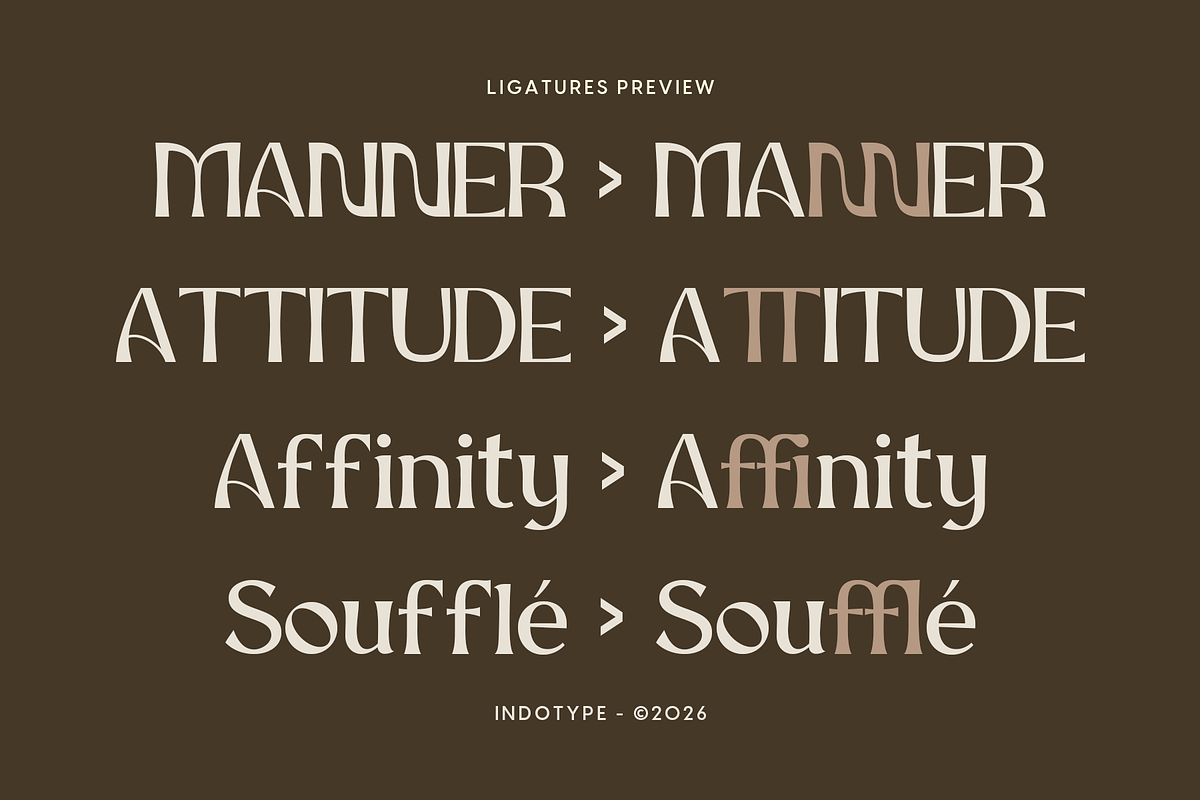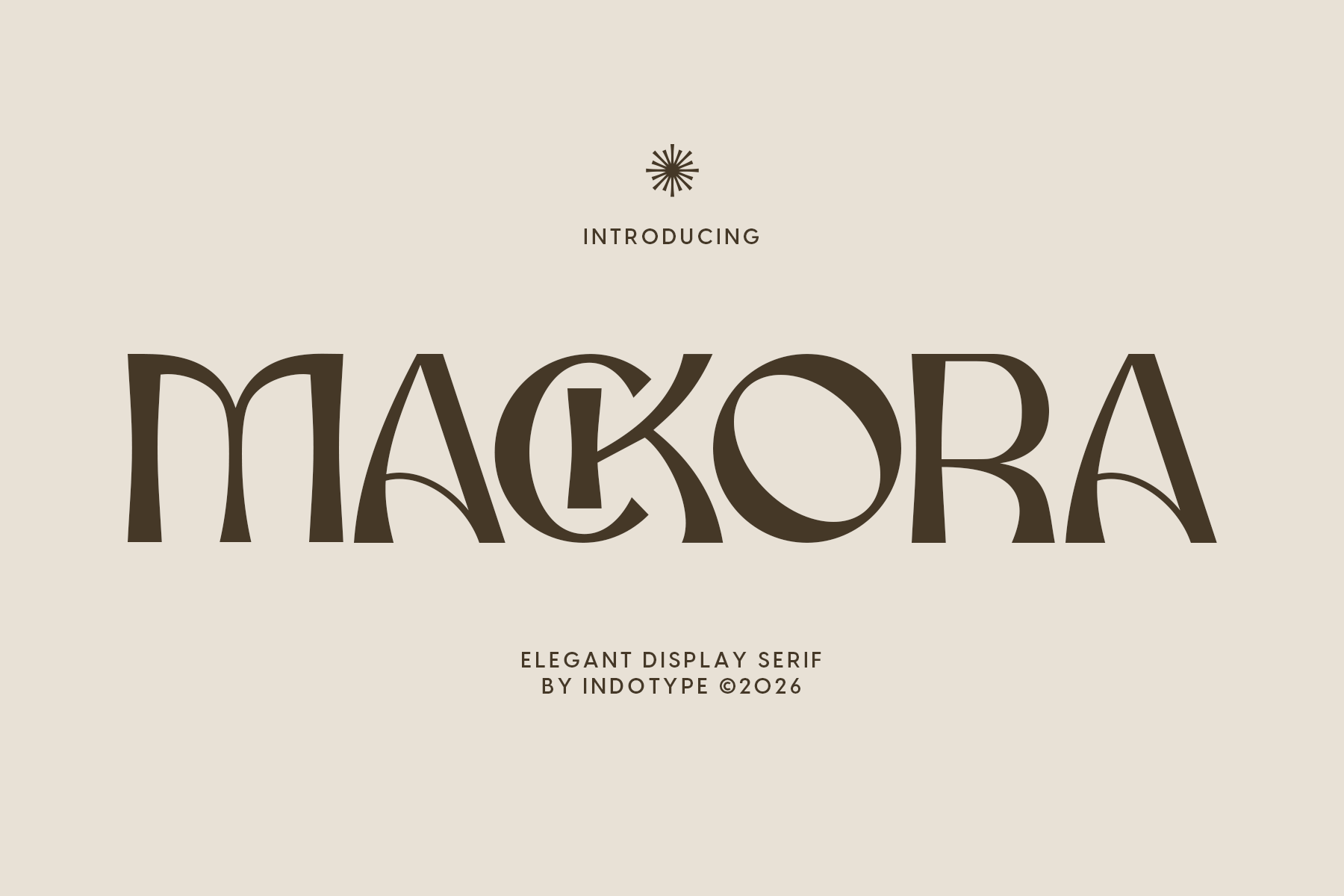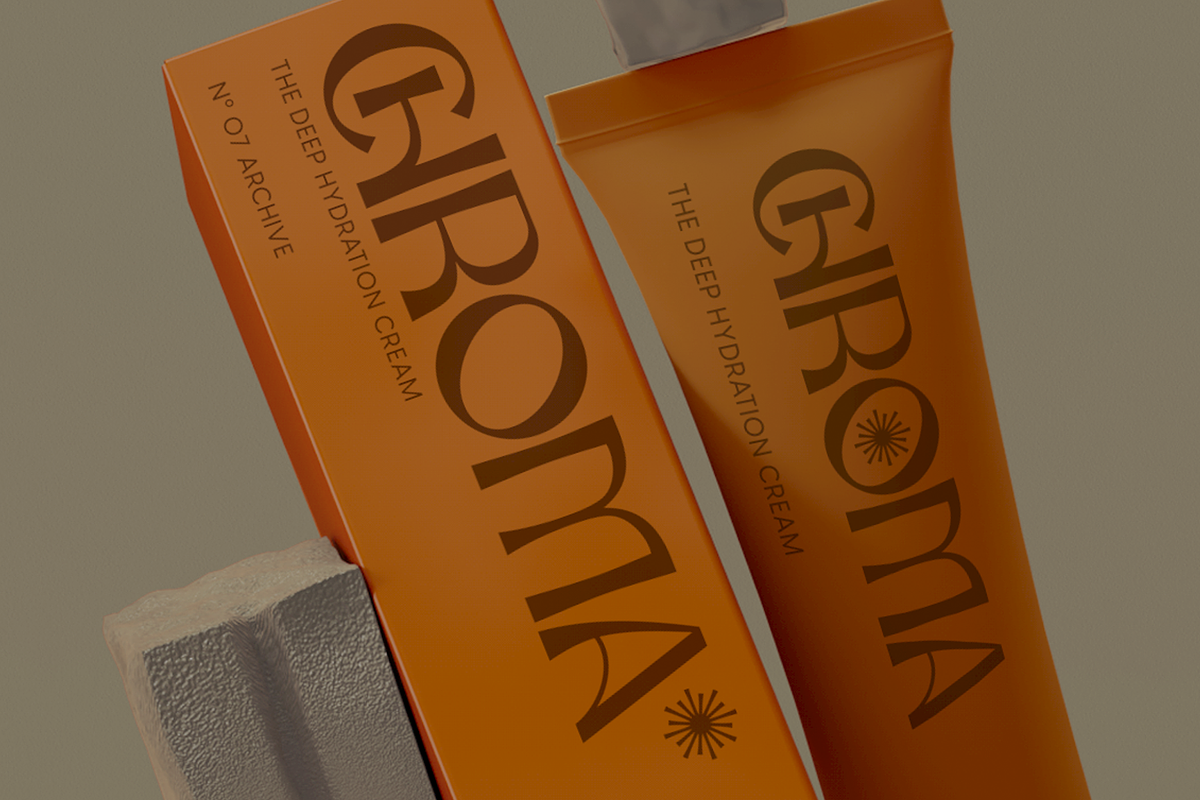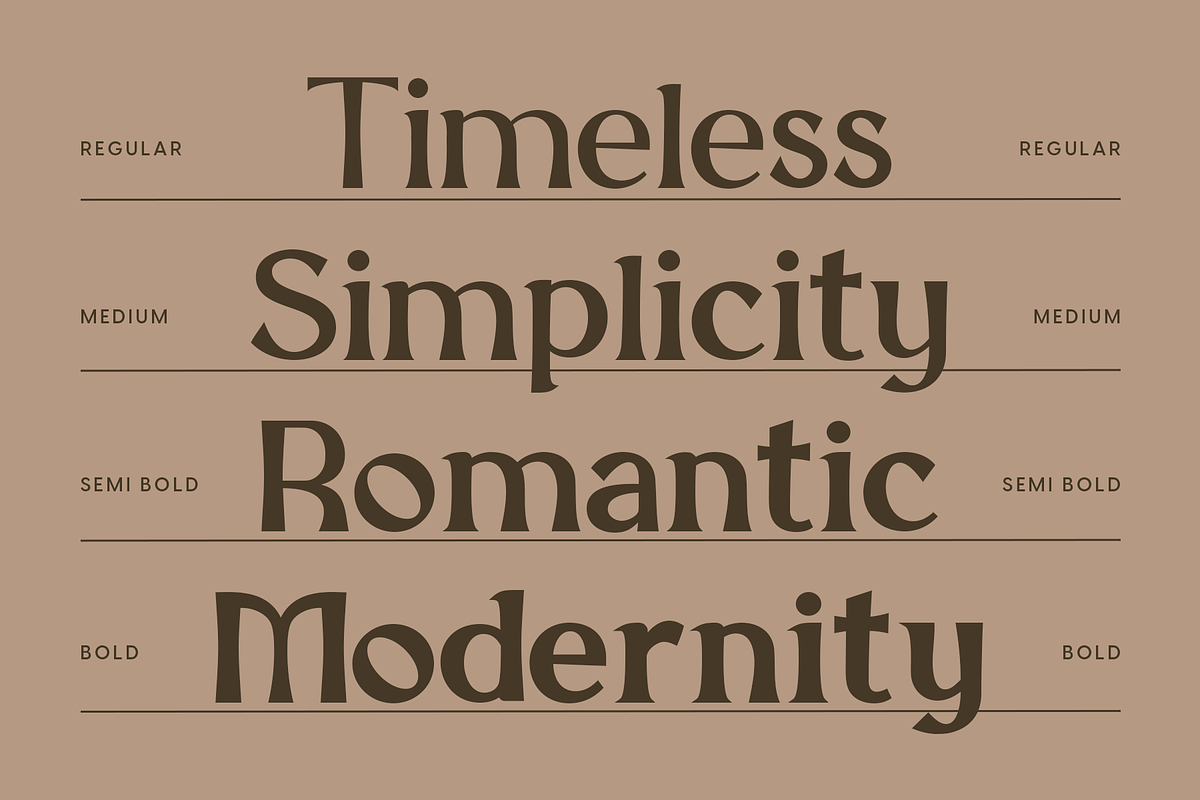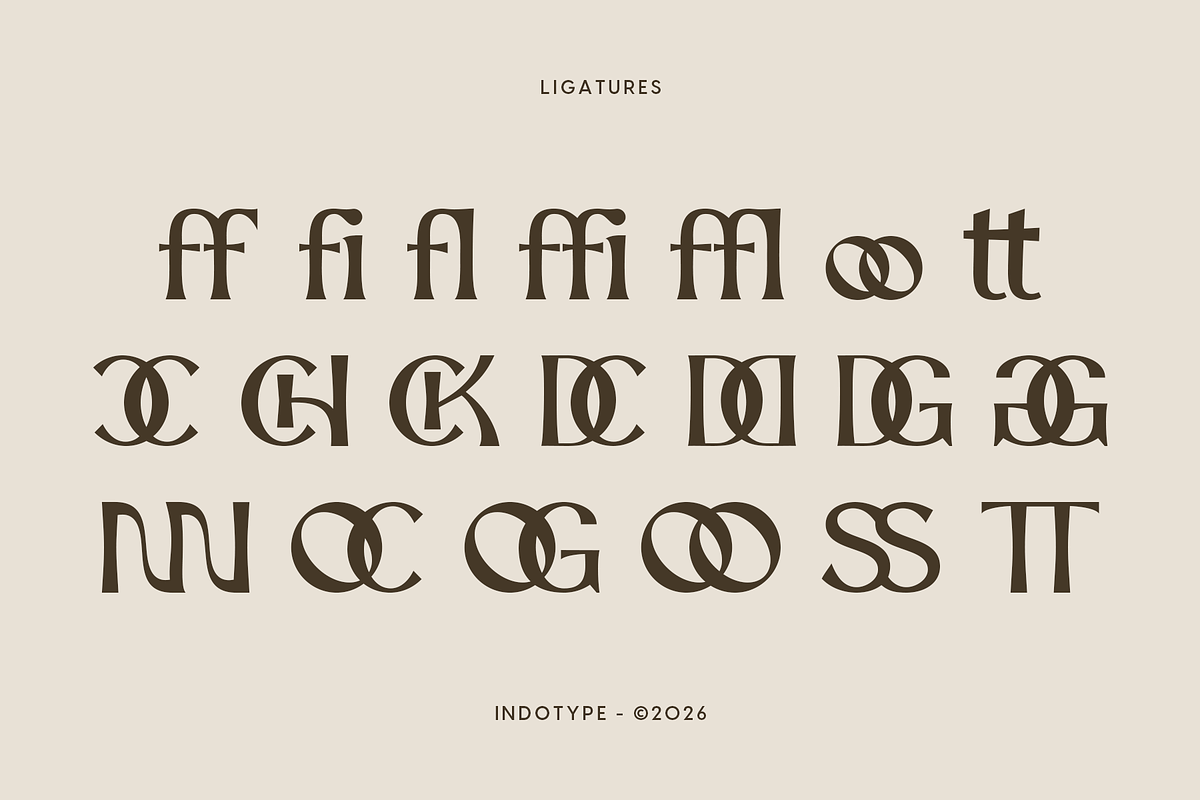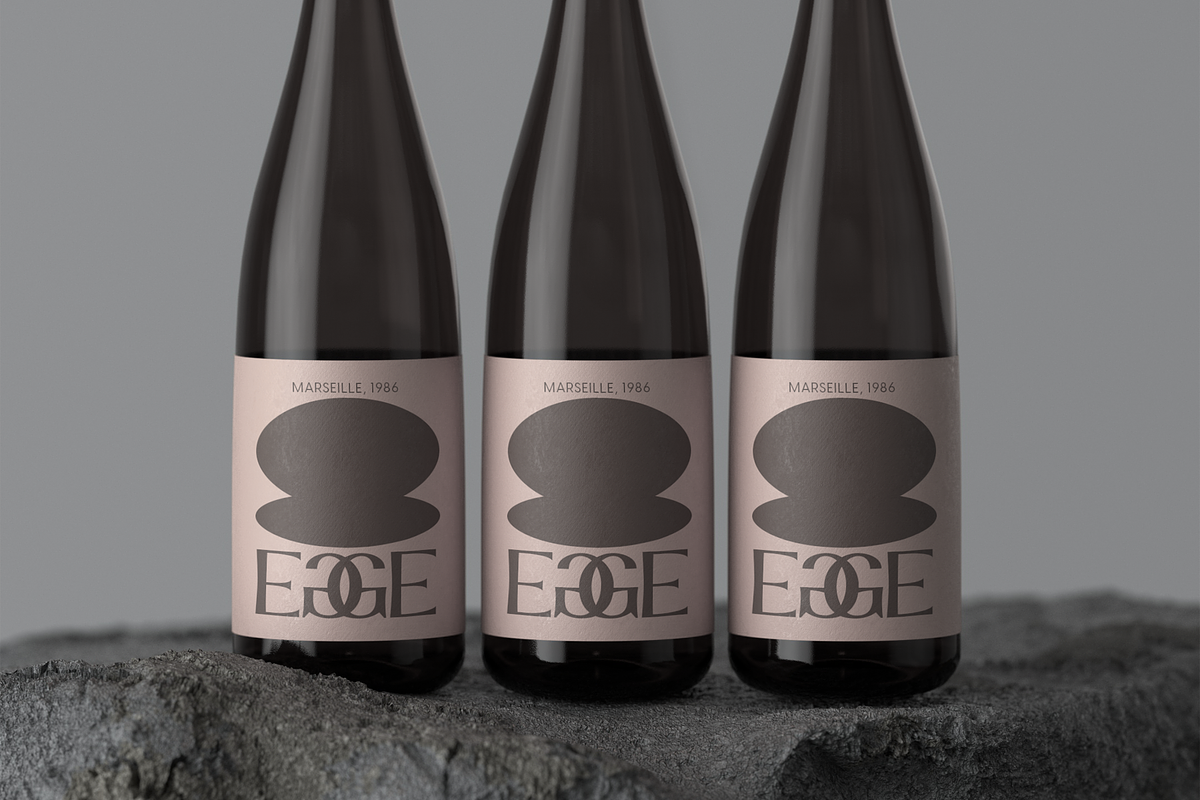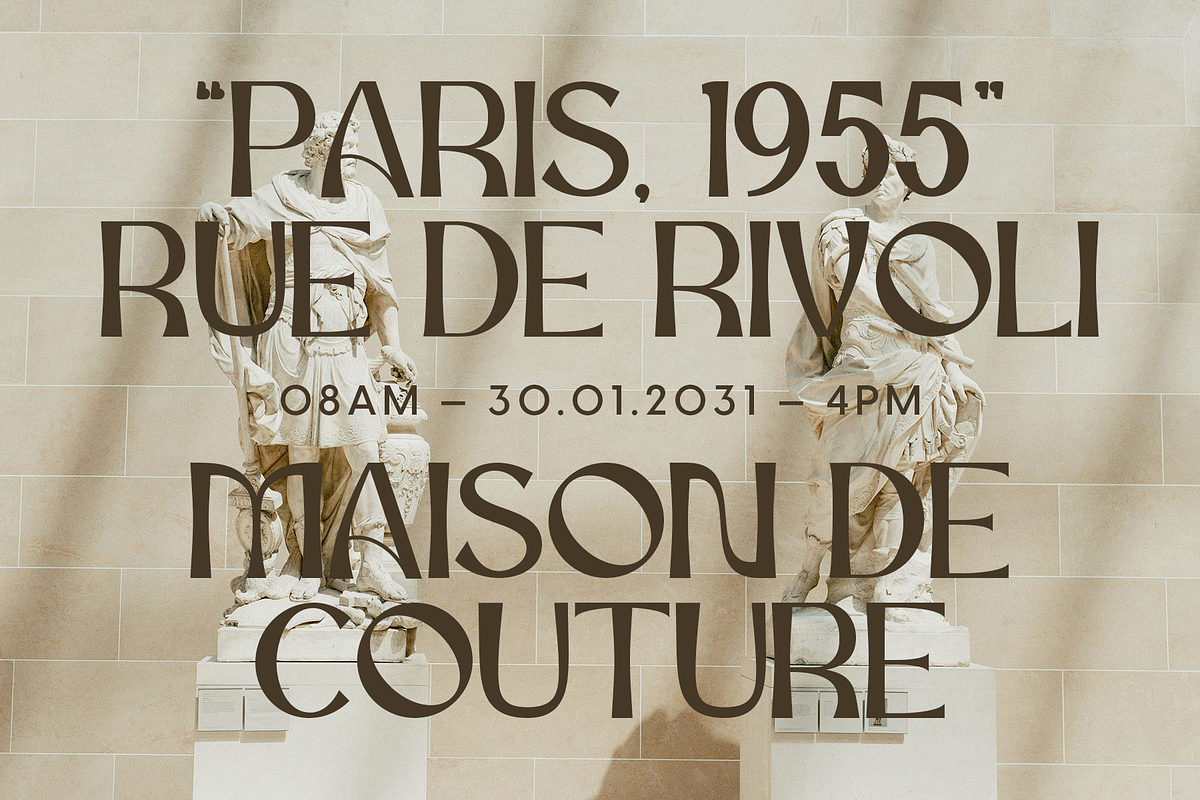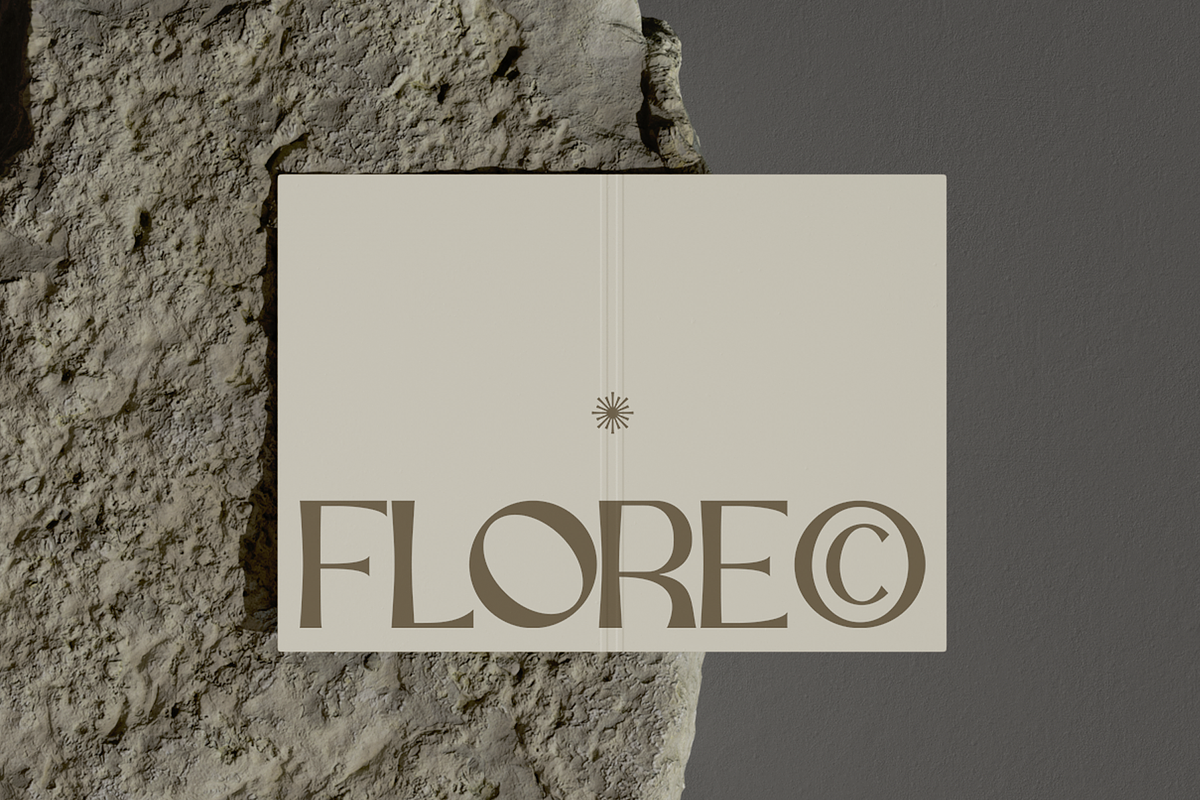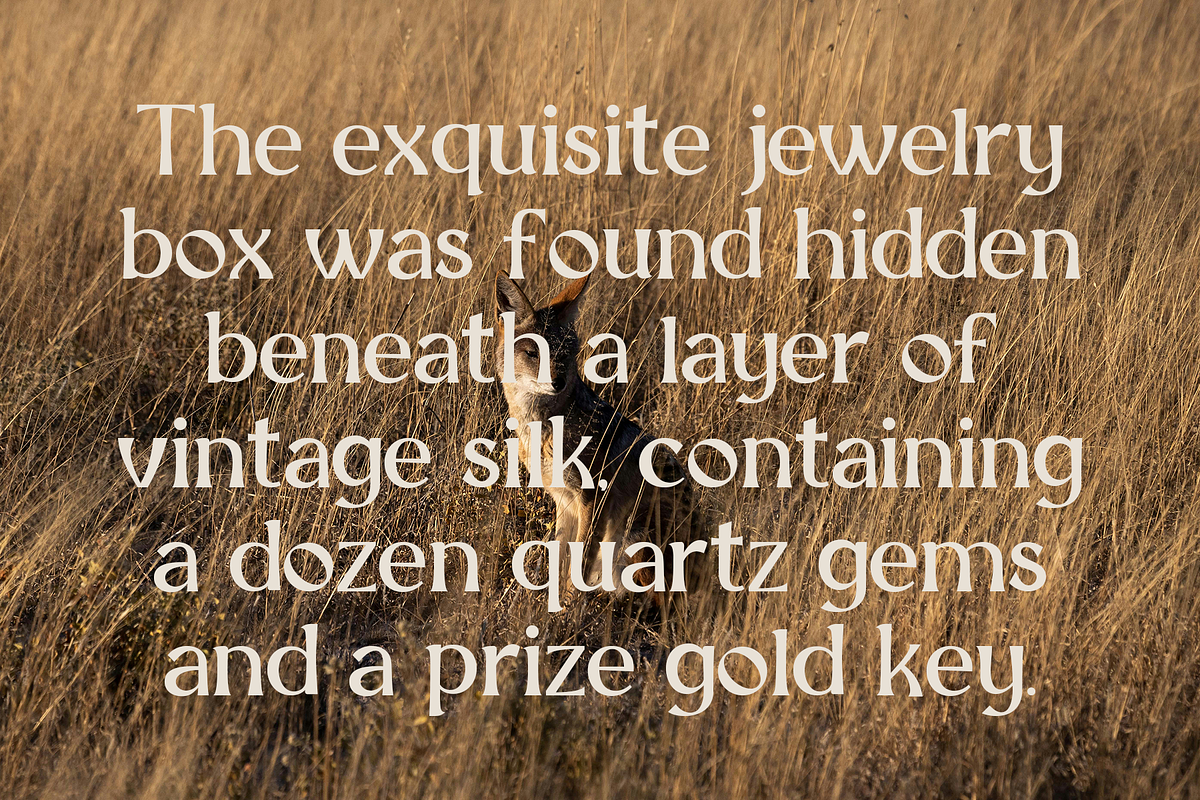
Mackora - Elegant Display Serif Font
Mackora's letterforms are defined by a dramatic interplay between sweeping curved strokes and precise vertical structure — a tension that gives the typeface its unique visual energy. The most immediately striking quality is the scale and fluidity of the curved elements: arches and bowls that expand to near-maximum width before resolving into fine, tapered terminals, creating an almost architectural sense of weight distribution across each glyph. The M, with its wide-spreading legs and deeply curved arches, and the A, with its sweeping crossbar descending into a dramatic curve, are particularly expressive examples of this design philosophy — letters that read as much as abstract forms as they do as linguistic characters. The serif treatment is idiosyncratic and carefully considered: fine, flat serifs applied with deliberate selectivity, appearing where they reinforce structural clarity and withheld where the letterform's own curves provide sufficient resolution. This selective application gives Mackora a semi-serif quality — more structured than a pure sans, more fluid than a conventional serif — that places it in a typographic category of its own. The result is a typeface that surprises at every turn, rewarding close reading with an ongoing discovery of detail and craft.